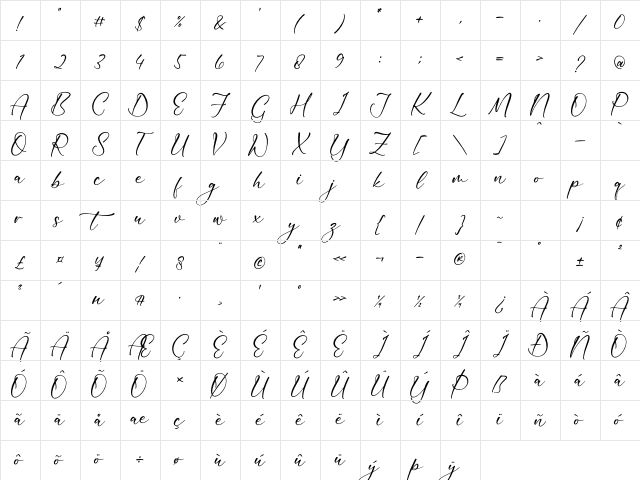
Victorya Maoreely Regular
Foundry: Integritype Studio
Designer: Nanang Jamaludin
Design Context for Victorya Maoreely
Victorya Maoreely is a composed and adaptable typeface that performs quietly and consistently across a wide range of design contexts.